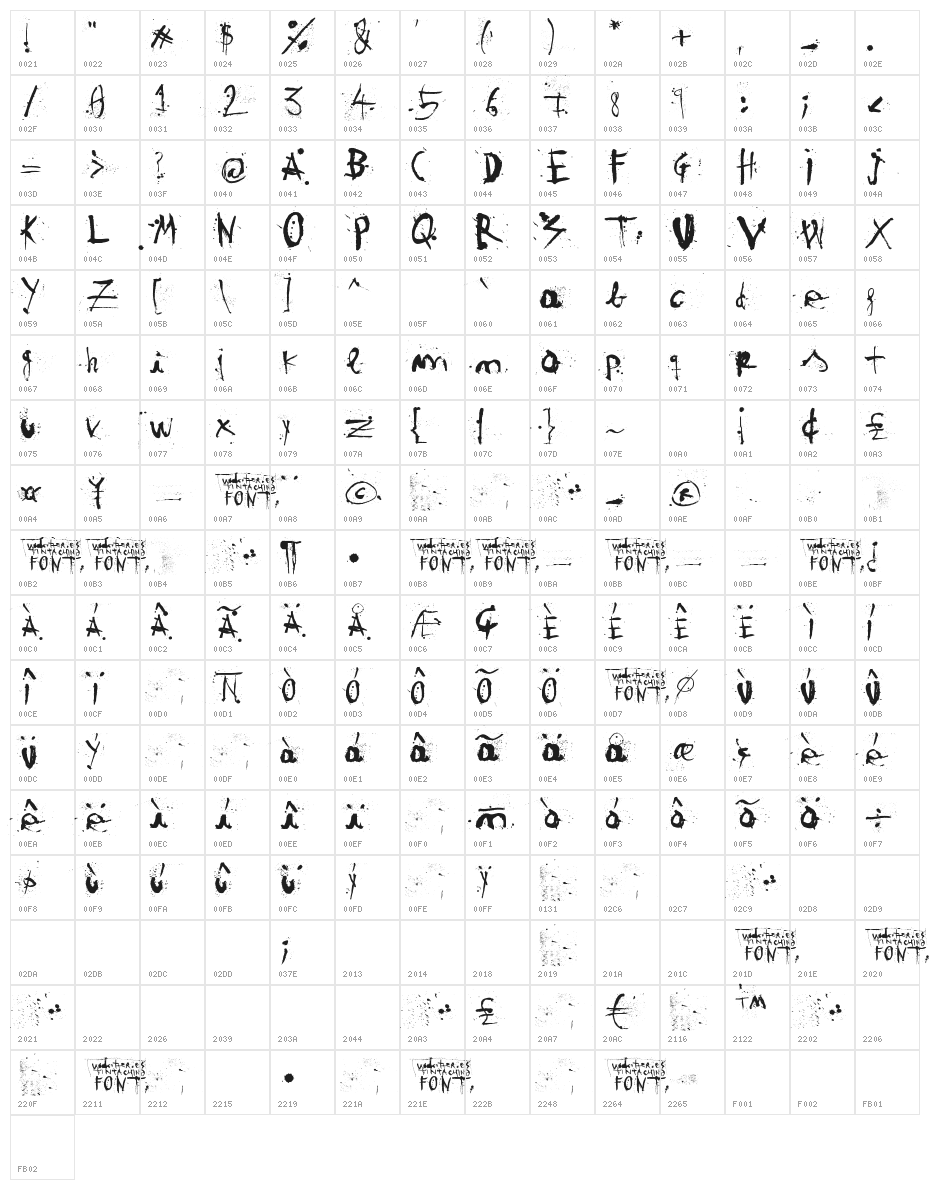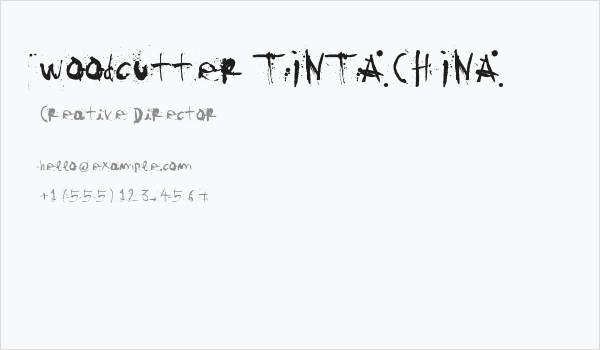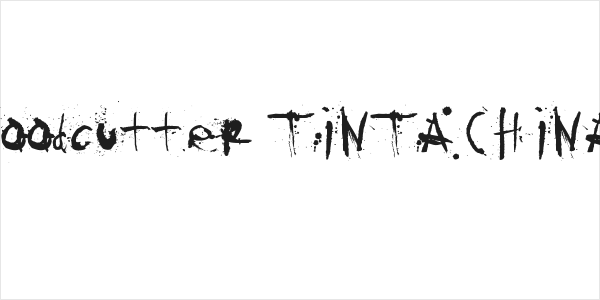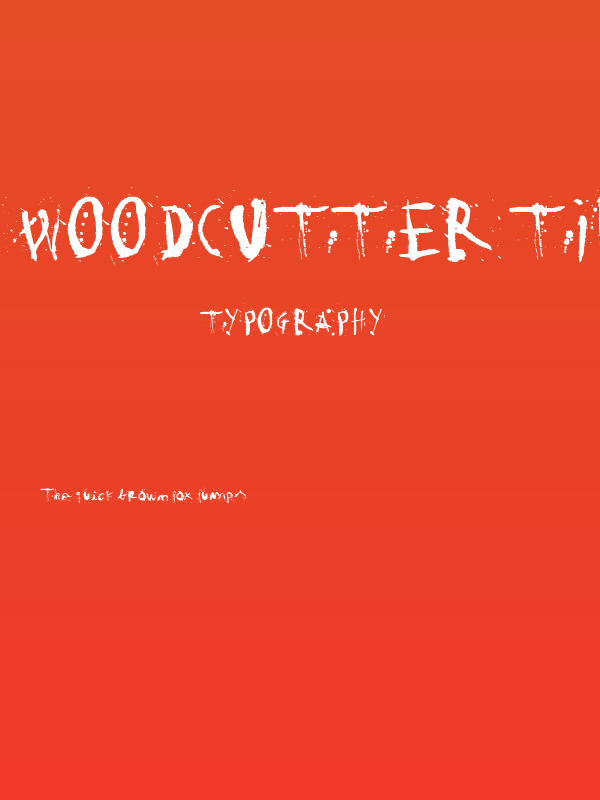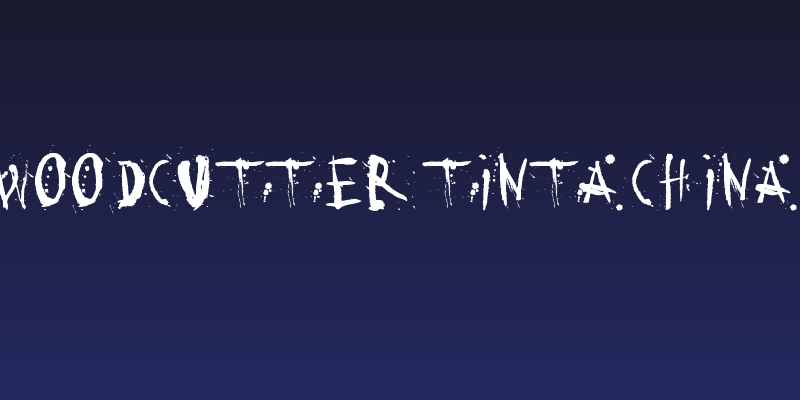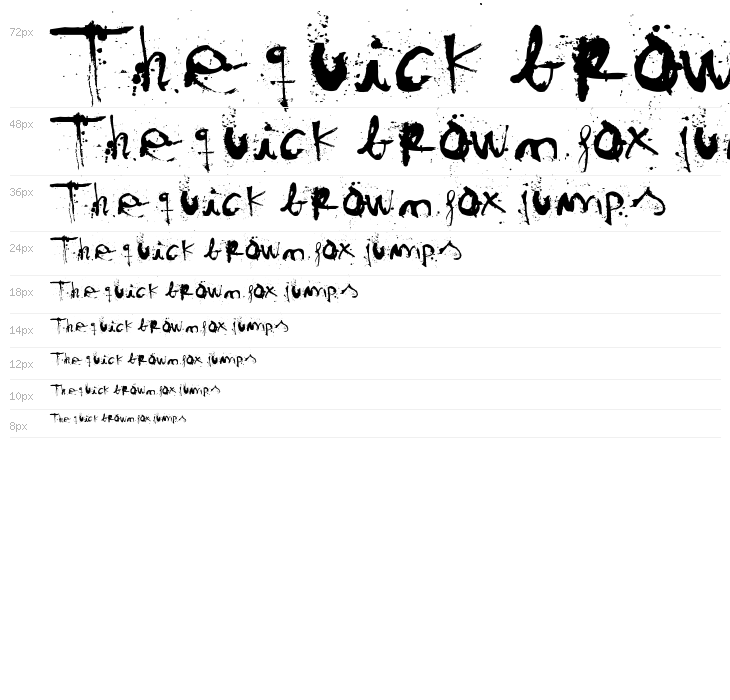
woodcutter TINTA CHINA Font
woodcutter TINTA CHINA Description
This font exudes a raw, artistic flair reminiscent of ink splatters and brush strokes. Each character is uniquely crafted with an irregular, hand-drawn appearance, giving it a dynamic and expressive quality. The uppercase letters are bold and assertive, while the lowercase letters maintain a playful yet edgy demeanor. Numbers and special characters follow the same artistic style, enhancing the font's cohesive look. The overall texture is rough, with intentional imperfections that add to its charm. This font is perfect for projects that require a touch of creativity and individuality.
| Proposed Projects | Ideal for artistic posters, album covers, creative branding, and edgy graphic designs. |